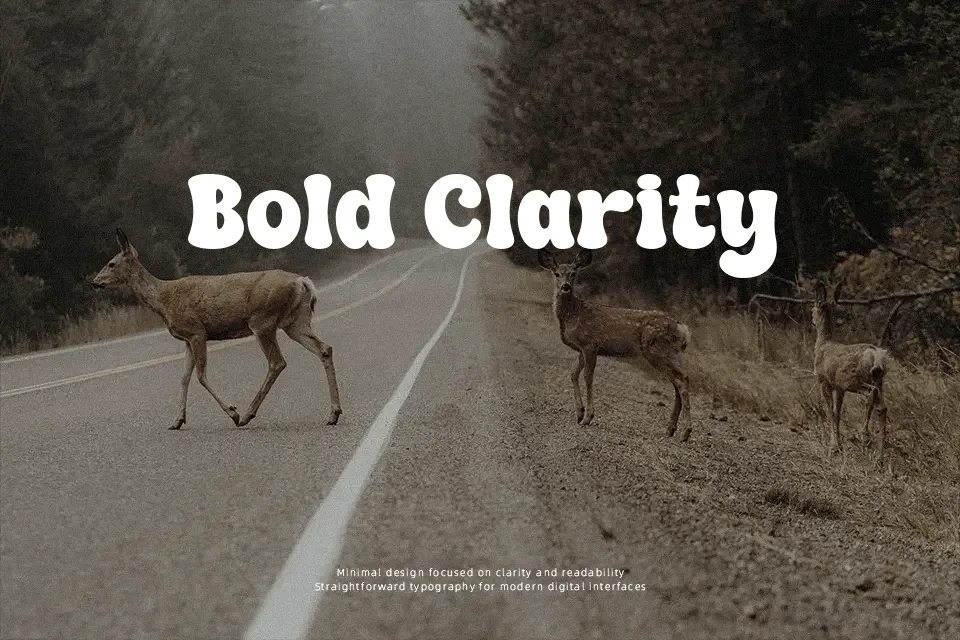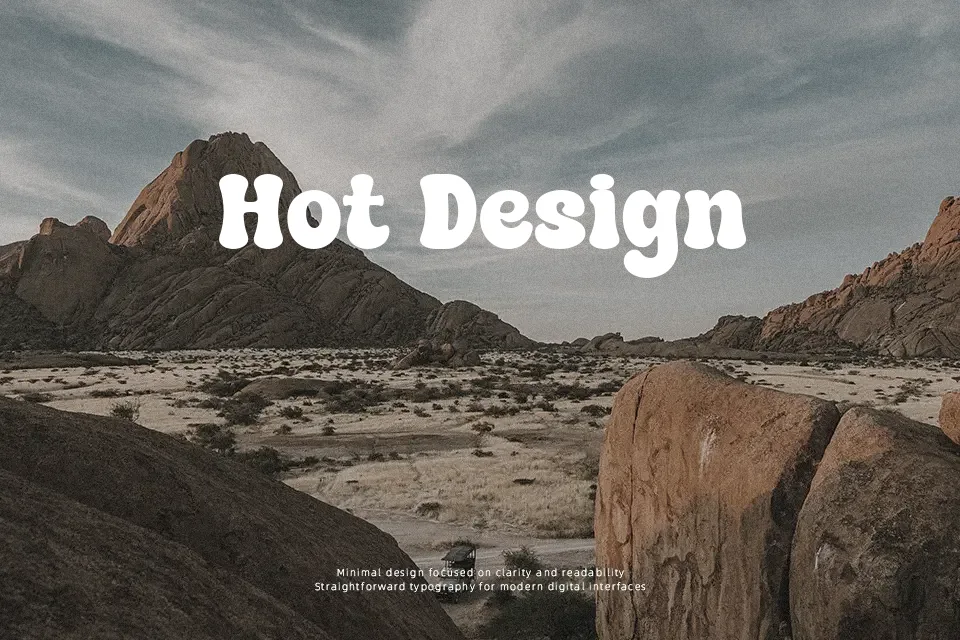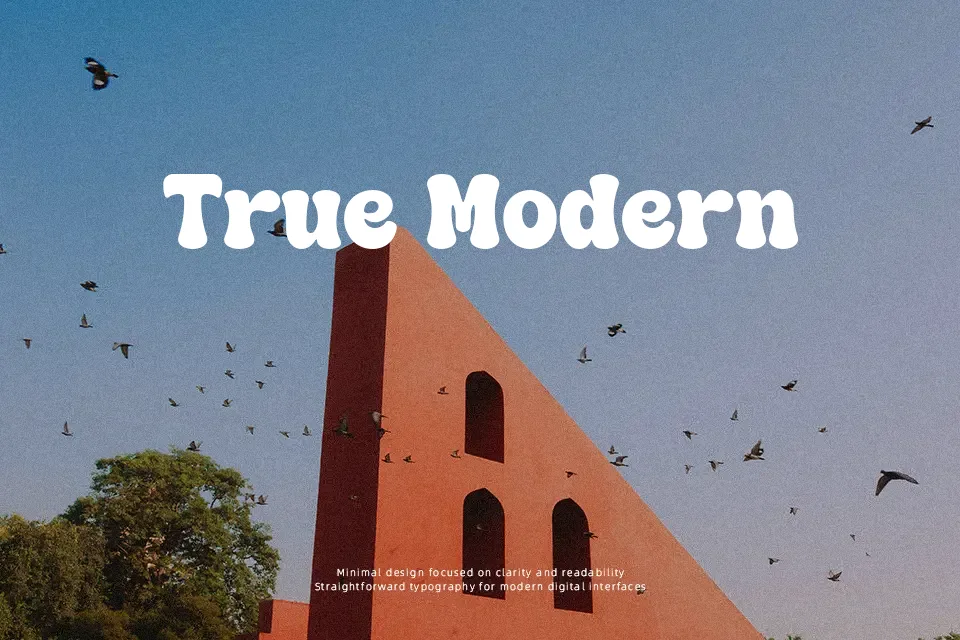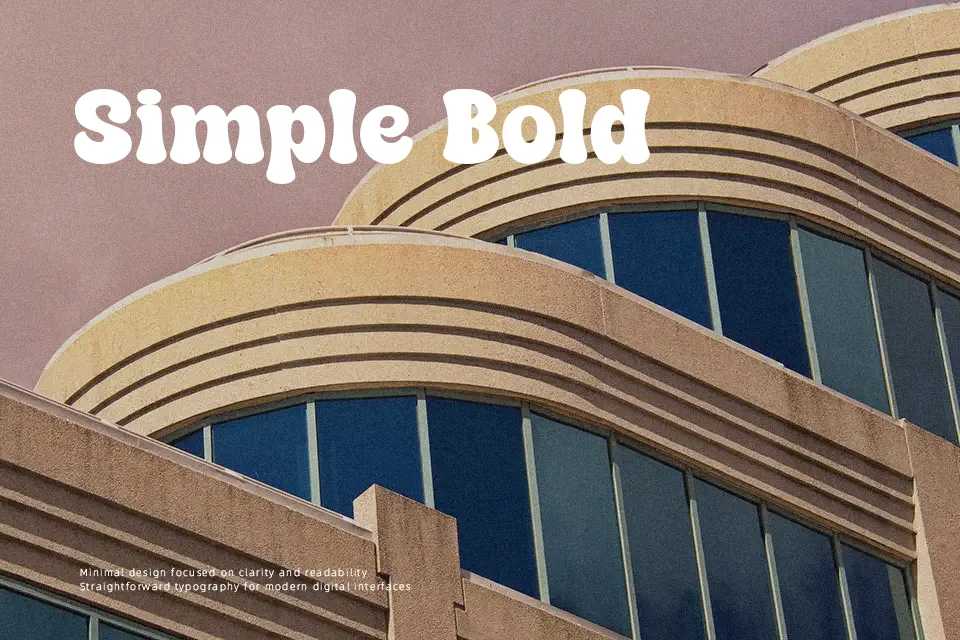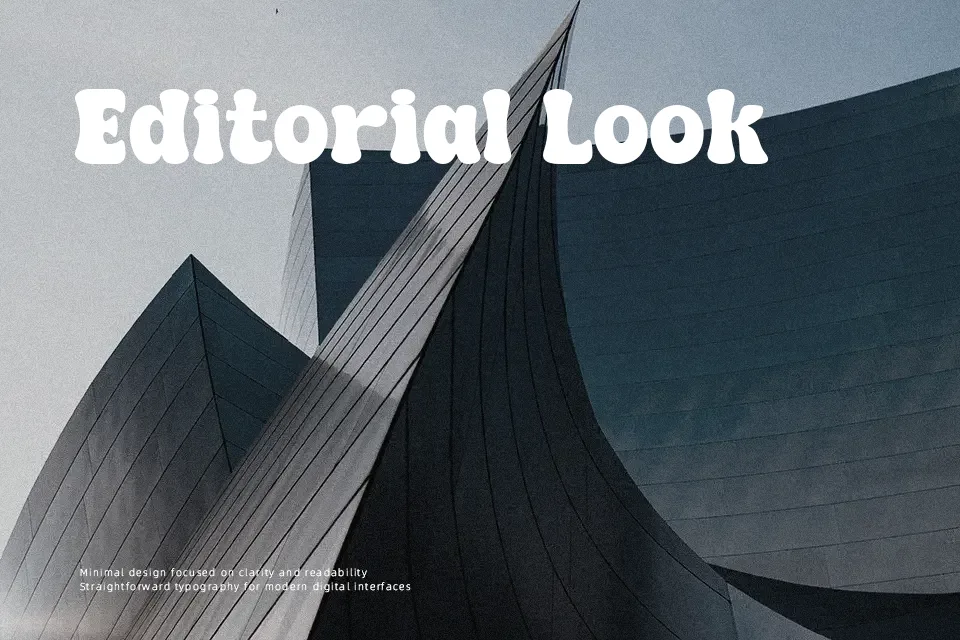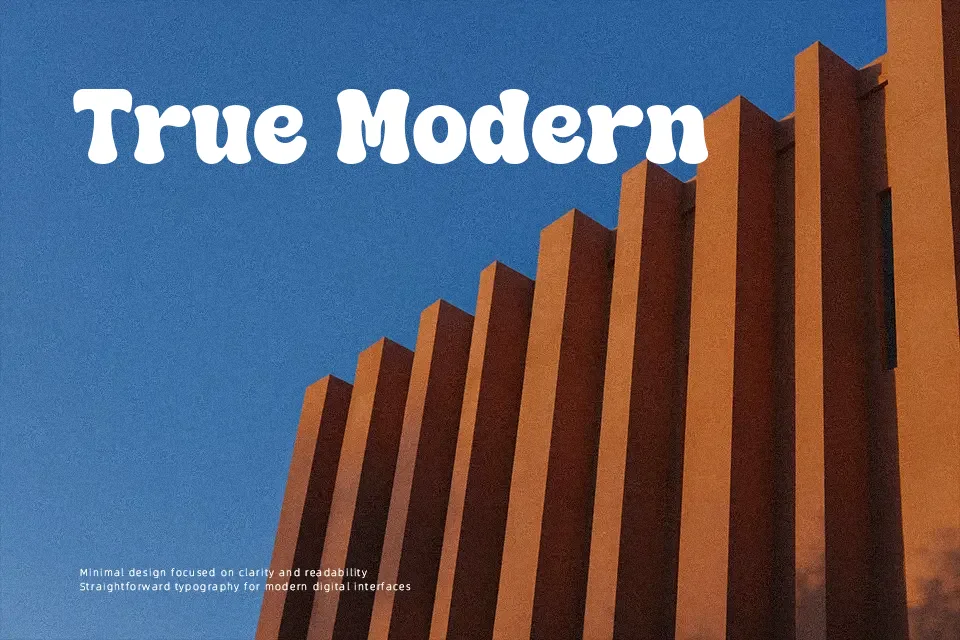
Super Sunday Font
Super Sunday Font uses broad, rounded forms, thick low-contrast strokes, and soft curves to create an emphatic display presence. The letterforms feel wide and substantial, with a compact visual rhythm that keeps short words visually connected in headlines. Its chunky proportions remain clear at poster and packaging sizes, while the decorative shaping makes it better suited to brief phrases than extended copy. The font works particularly well when a design needs a bold, informal focal point rather than a neutral text voice. At smaller sizes, the dense heavy forms can make fine details and counters less immediately distinct.
Best For: retro product packaging,poster headlines,social media graphics,short logo designs
Perfect for headline, logo, and packaging, with a bold and decorative style.